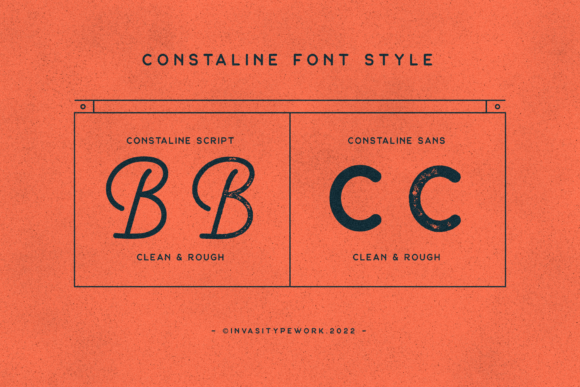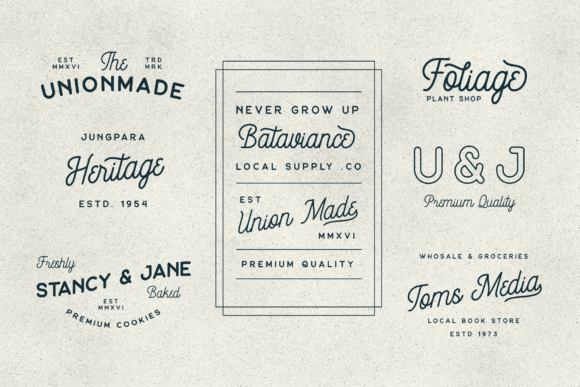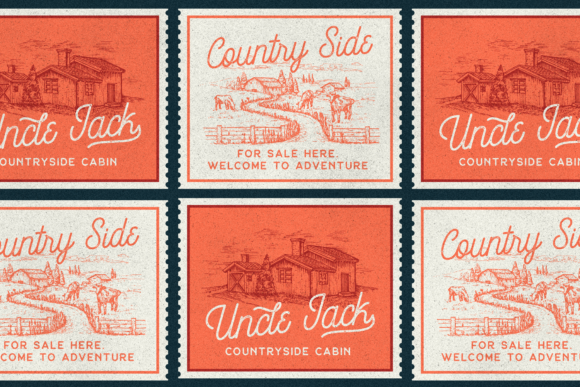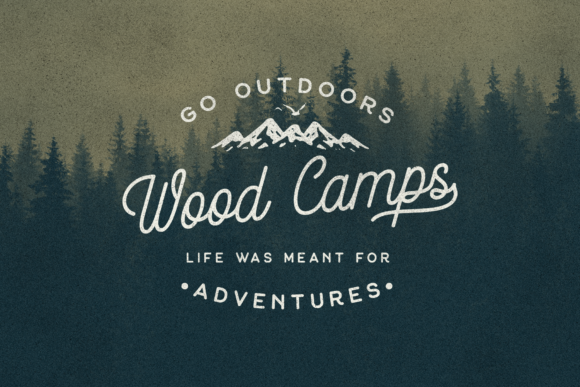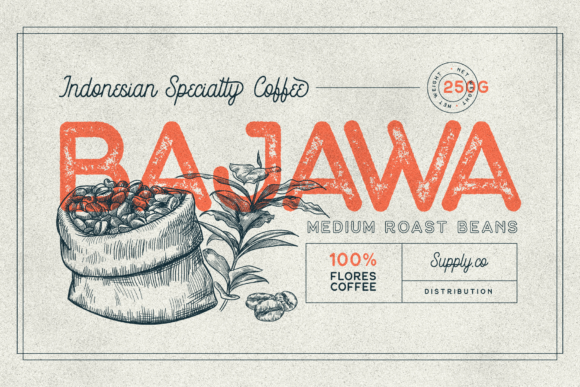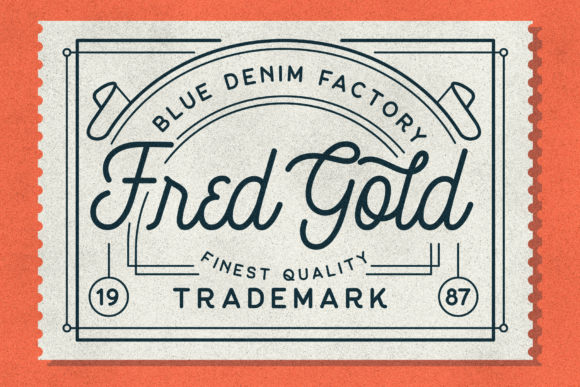
Introducing Constaline Font: A Vintage Styled Duo for Stunning Designs
Are you on the hunt for a font that exudes elegance, sophistication, and a touch of nostalgia? Look no further than Constaline, a beautiful vintage-styled duo font that combines the best of both worlds: script and sans serif. This gorgeous font is perfect for designers and crafters looking to add a dash of classic charm to their projects.
The Perfect Blend: Script and Sans Serif
Constaline Font is a thoughtfully crafted duo font that pairs a stunning script font with a clean sans serif font. The script font boasts flowing curves, intricate details, and a sense of movement, while the sans serif font provides a crisp, modern contrast. This versatile combination allows you to create a wide range of designs, from elegant wedding invitations and sophisticated branding materials to eye-catching posters and delightful digital content.
Ravishing Style at Your Fingertips
One of the standout features of Constaline Font is its ravishing style. The font’s vintage inspiration is evident in its classic lines, beautiful swashes, and ornate details. Whether you’re looking to create a romantic, whimsical, or luxurious feel, Constaline Font provides the perfect tools to bring your vision to life. With its extensive range of glyphs and swashes, you can effortlessly add a touch of personality to your designs and make them truly unforgettable.
The versatility of Constaline Font is one of its most compelling features. This font can be used for a wide range of design projects, including:
- Posters, flyers, and brochures
- Digital content, including social media graphics and blog headers
- Packaging design, such as labels and tags
Why Choose Constaline Font?
With so many fonts available, why choose Constaline? Here are just a few reasons:
- Unique and distinctive style: Constaline Font offers a refreshing change from generic fonts, allowing you to stand out from the crowd.
- High-quality design: Every detail, from the flowing curves to the intricate swashes, has been carefully crafted to ensure a beautiful and professional finish.
- Versatility: Constaline Font can be used for a wide range of design projects, making it a valuable addition to your font library.
Constaline Font is a stunning vintage-styled duo font that offers a perfect blend of elegance, sophistication, and creativity. With its ravishing style, PUA encoding, and endless design possibilities, this font is a must-have for designers and crafters looking to elevate their projects. Whether you’re creating wedding invitations, branding materials, or digital content, Constaline Font provides the perfect tools to bring your vision to life. So why wait? Fall for the charm of Constaline Font and start creating gorgeous designs today!